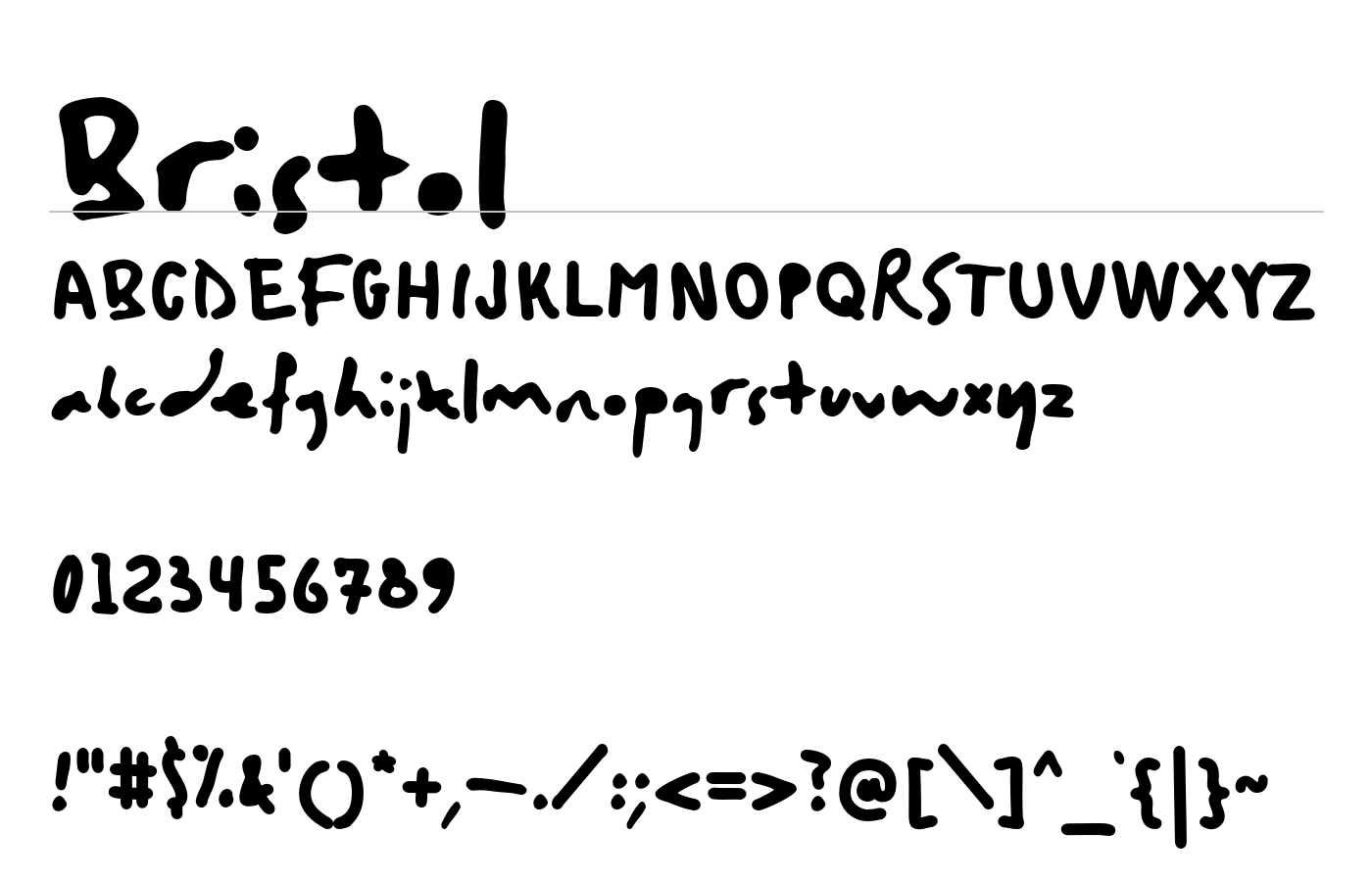
Bristol Font is a playful, hand-drawn sans serif with a casual and friendly vibe, featuring uneven strokes and organic shapes that give it a personal, informal feel. Its uneven letterforms and moderate contrast make it perfect for creative designs, children’s materials, or branding that seeks a warm, approachable touch. This font works especially well in headlines, logos, and packaging where a unique, handcrafted look is desired.
Bristol Font
About Bristol Font
| Designer | Jovanny Lemonad |